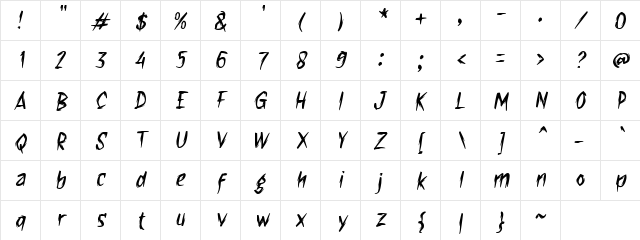
f Fire Blast Regular
Designer: Wahyu Eka Prasetya
Design Context for f Fire Blast
f Fire Blast is a composed and adaptable typeface that performs quietly and consistently across a wide range of design contexts.